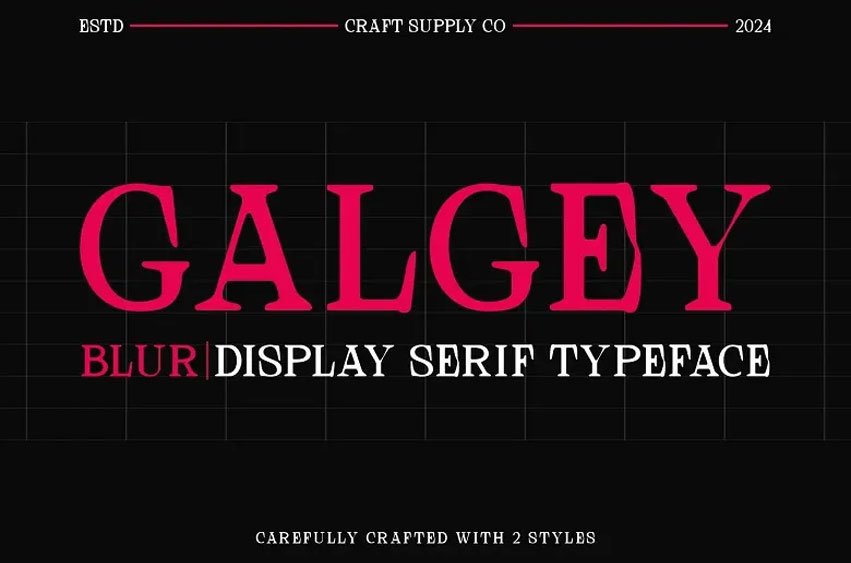
Galgey Blur Font is an exquisite serif font that is based on the Didone styles and combines the timeless aesthetics with the modern feel.
This typeface has bold wide vertical stems and fine hairlines in the horizontal position that is characteristic of Didone fonts; thus, it gives the text a formal and elegant appearance.